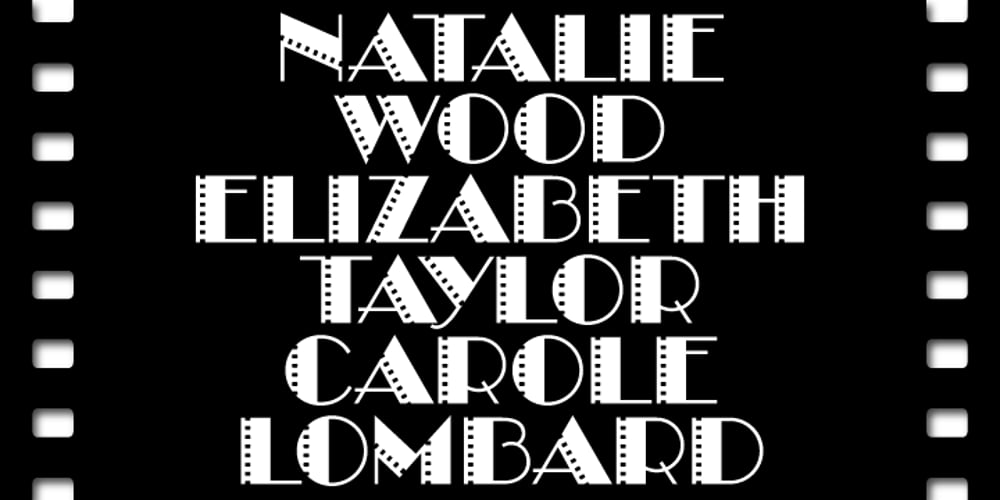
Take Two BF
Take Two BF font
Take Two BF Font Family was designed by John Bomparte and published by Bomparte’s Fonts. Take Two BF contains 2 styles and family package options. Get a can of soda and grab a bag of hot-buttered popcorn, ’cause it’s Lights! Camera! Action! Take Two BF turns in a stellar performance everytime. Best used in large sizes.